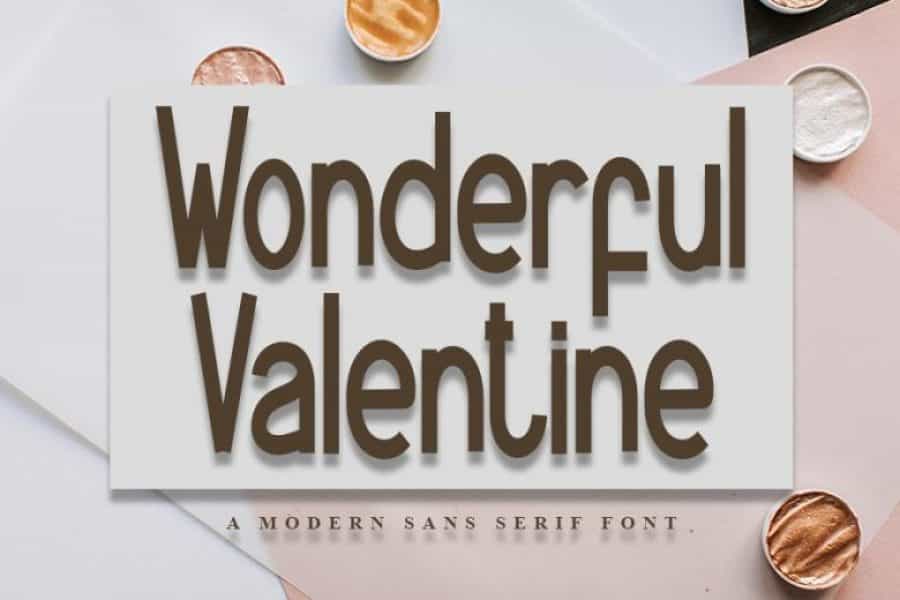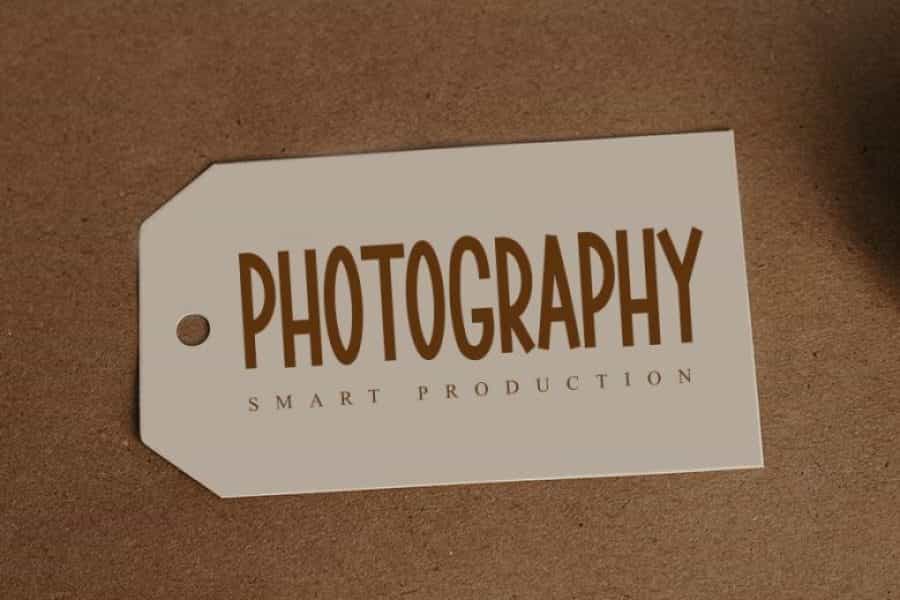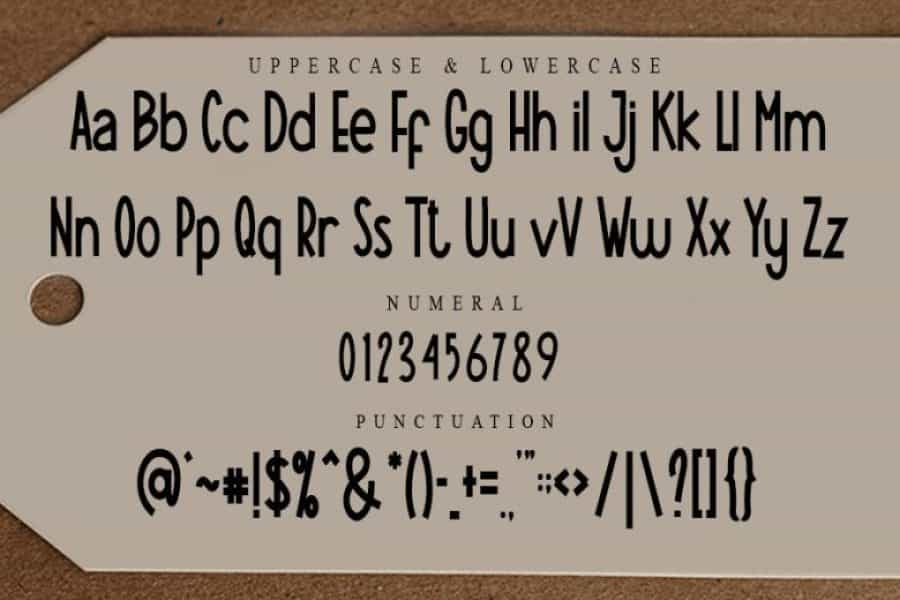
Wonderful Valentine is a fluid modern sans-serif font designed with elegance in mind, perfect for all of your projects. Fall in love with its timeless and versatile style as you create designs for walls such as wedding invitations, logos stationary products and photography albums with this font.